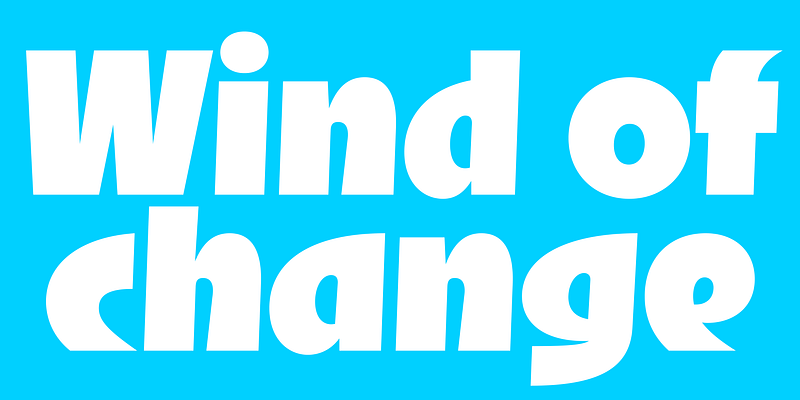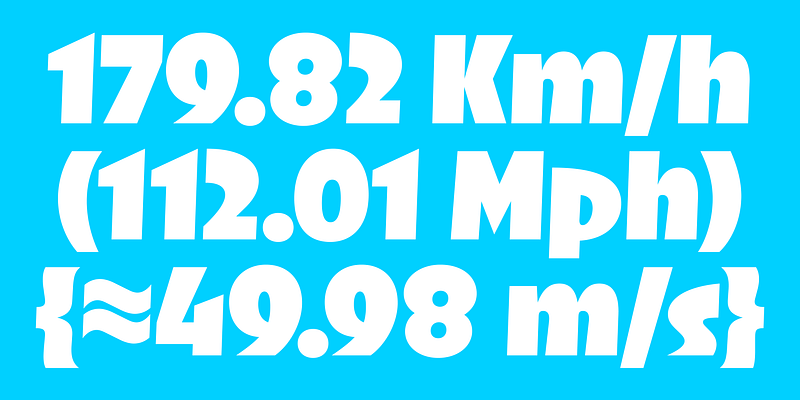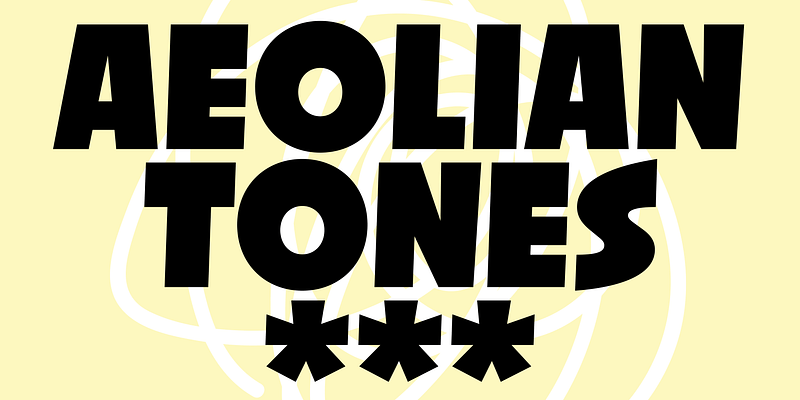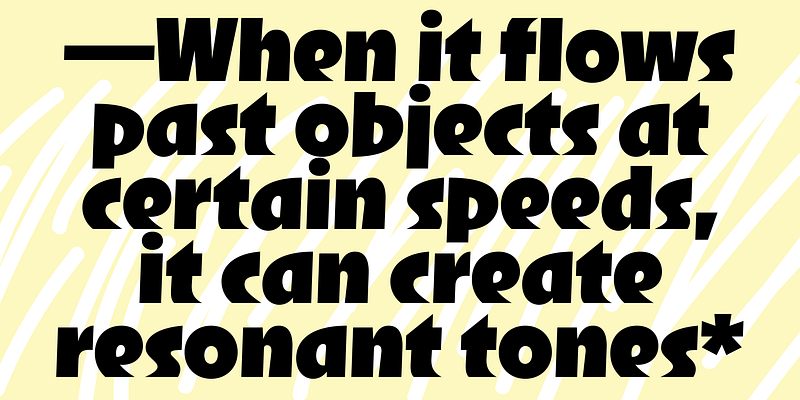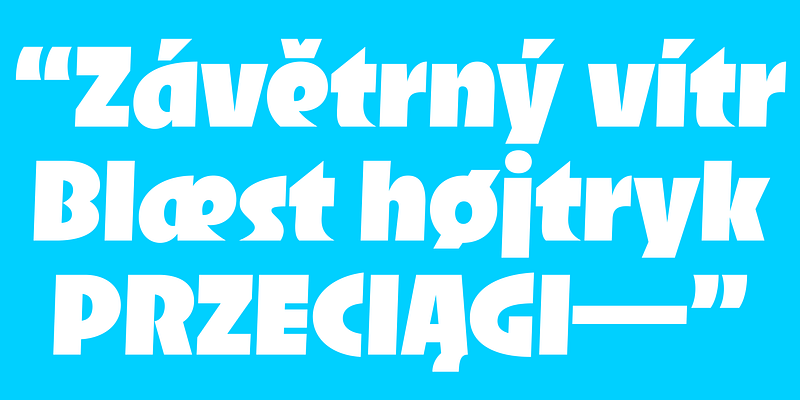
RL Fen is a single-style display typeface with a need for speed, full of energy, but never sweaty. It doesn’t lean heavily into slanted, italic drama; instead, it introduces subtle treatments that naturally accelerate the typesetting.
The lowercase is built around dynamic curves paired with abrupt cuts on letters like s, c, and e. This creates the impression of moving too quickly to stop cleanly, while still maintaining firm traction through its strong, horizontal baseline. The uppercase complements the design with airy characters such as C and S. Comfortable in all-caps settings, the typeface offers a contemporary twist on archaic forms where Latin and Greek once intertwined. Meanwhile, a hint of French typographic flair slips in through its brush-influenced strokes. RL Fen translates a sense motion into graphic dynamic.